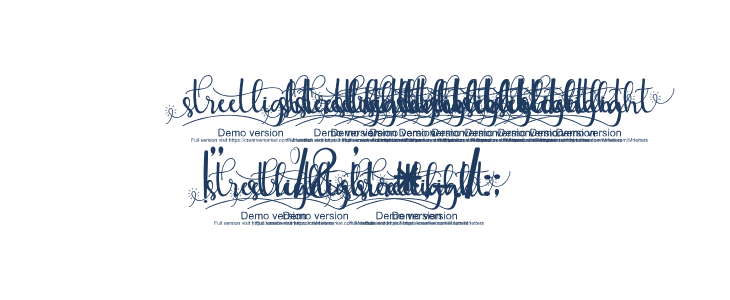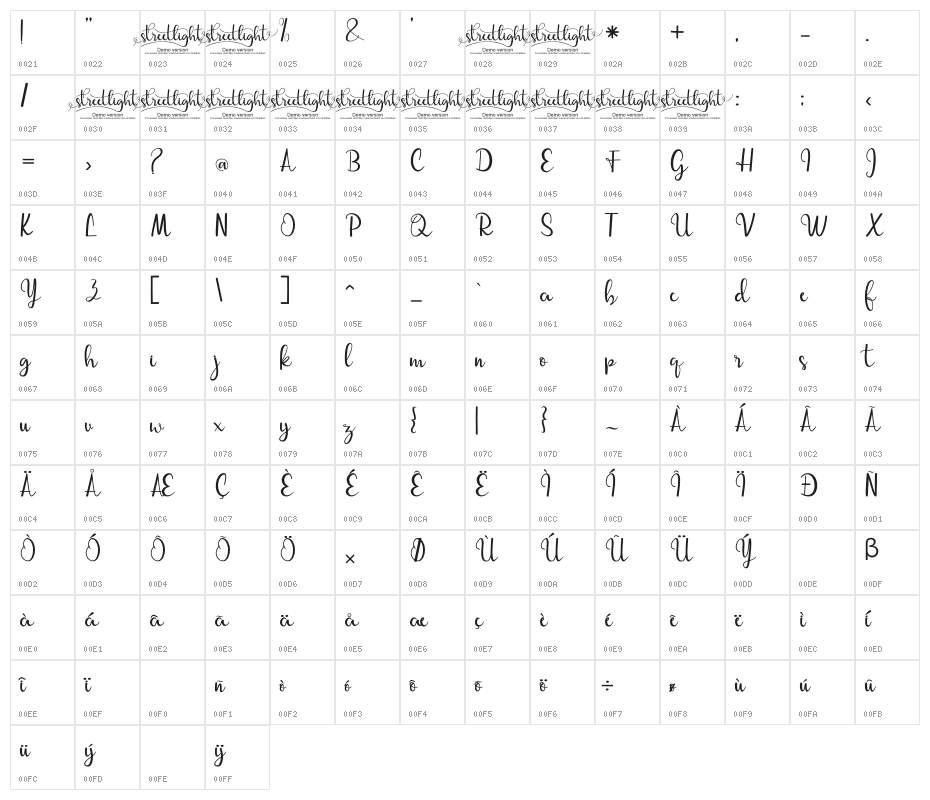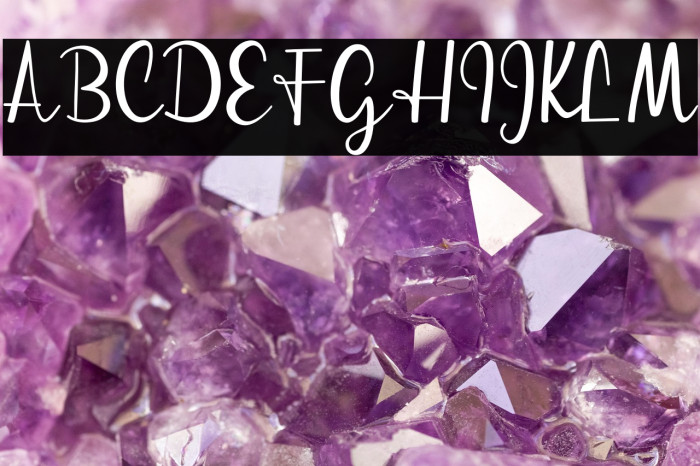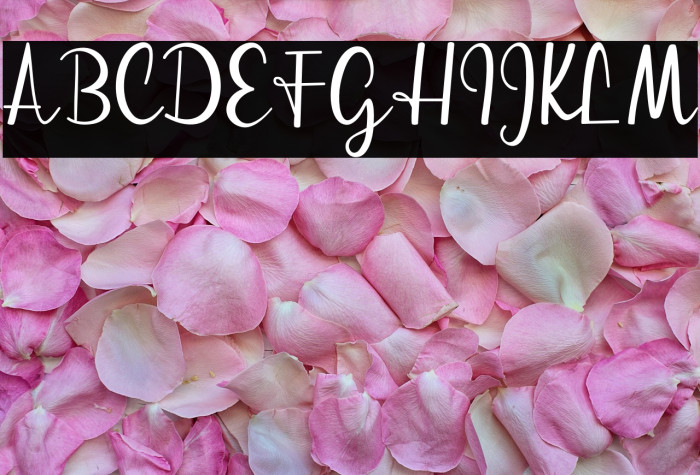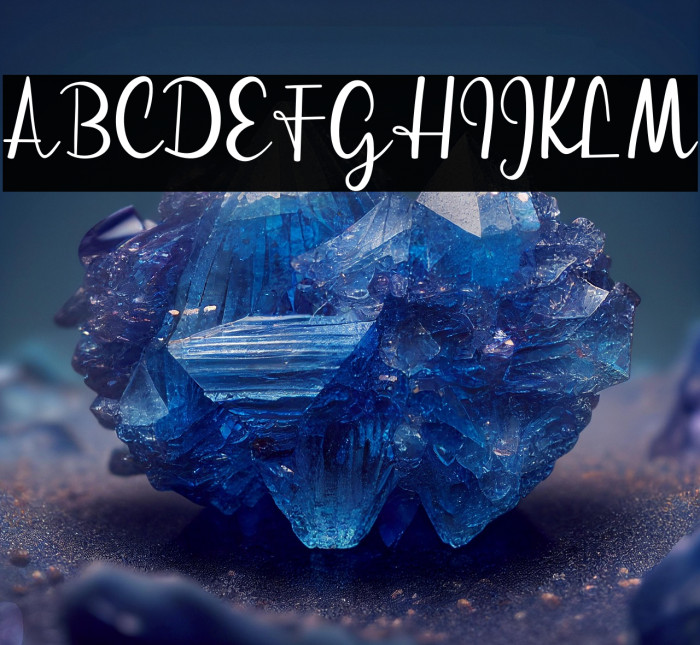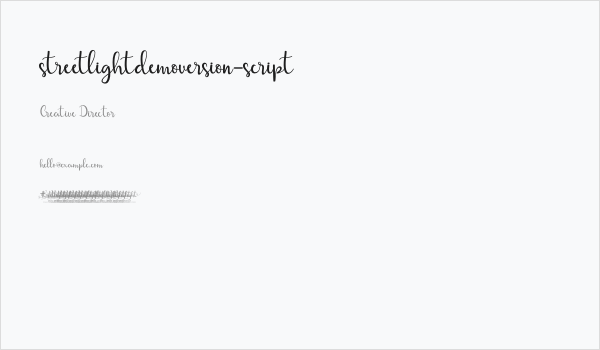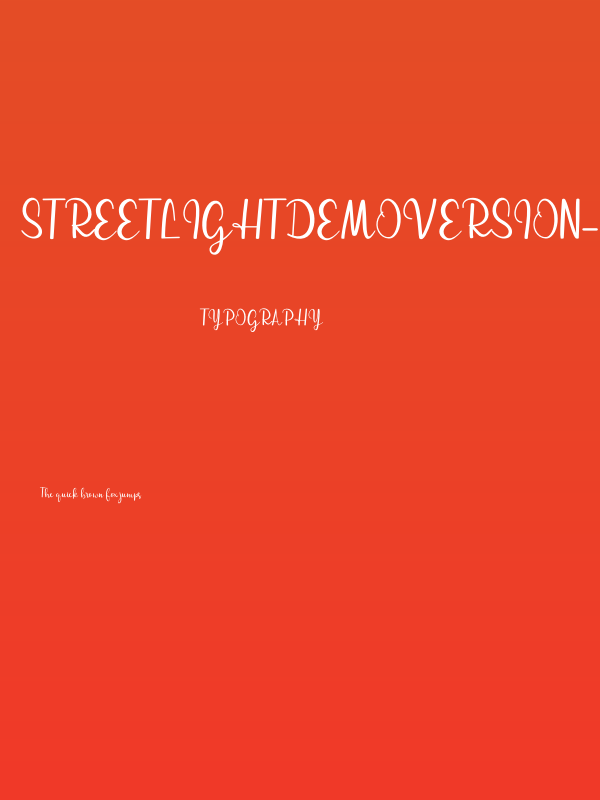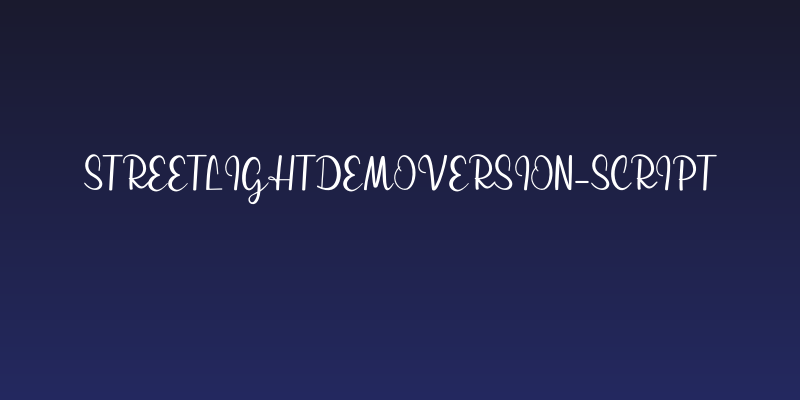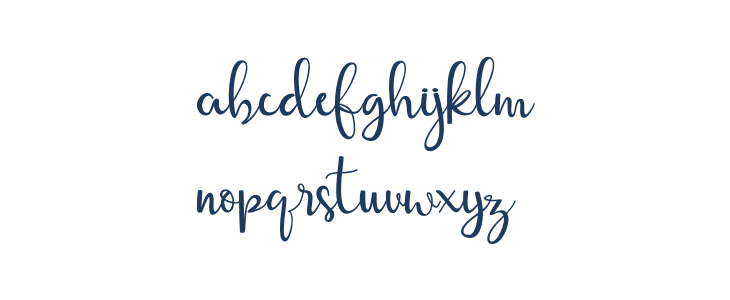
streetlightdemoversion-script Font
streetlightdemoversion-script Description
This font features a lively and flowing script style, characterized by its elegant and cursive letterforms. The uppercase letters exhibit a graceful, sweeping motion with a slight slant, while the lowercase letters maintain a consistent fluidity, enhancing the overall aesthetic. The strokes are moderately thick, providing a balanced contrast that adds to the font's readability. The playful loops and curves in the characters give it a whimsical and artistic feel, making it suitable for creative and expressive design projects. The font's unique style is further accentuated by its decorative elements, which add a touch of sophistication and charm.
| Use Case | Logos, Invitations, Artistic projects |
| Proposed Projects | Ideal for wedding invitations, greeting cards, branding, and artistic projects requiring a personal touch. |